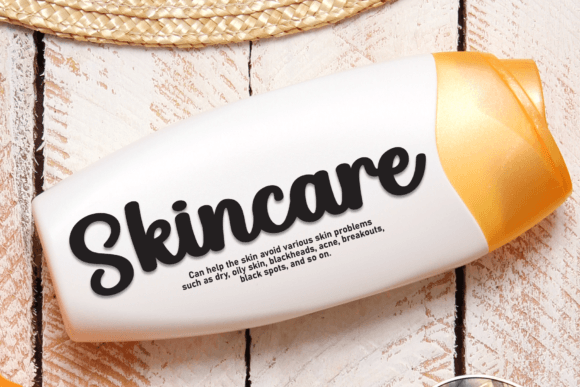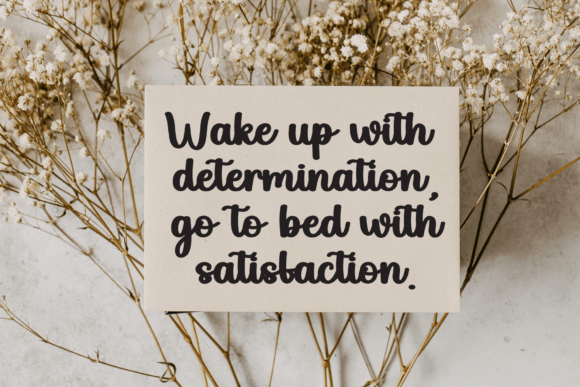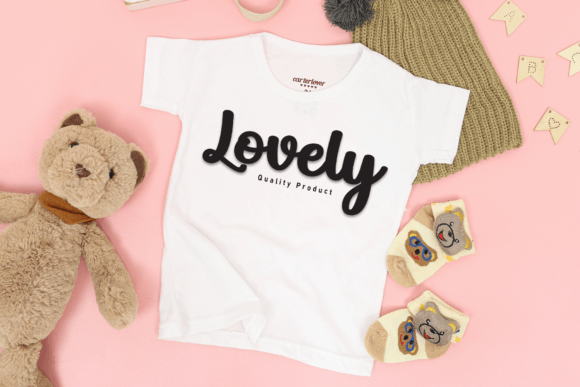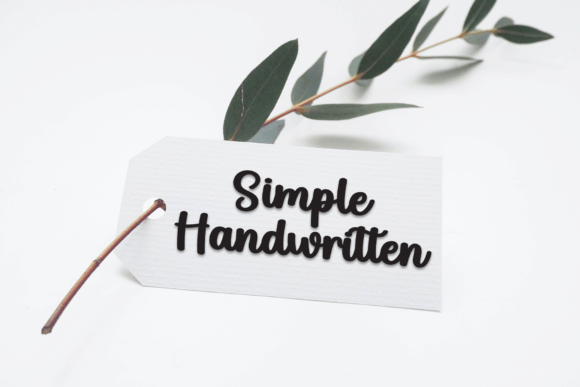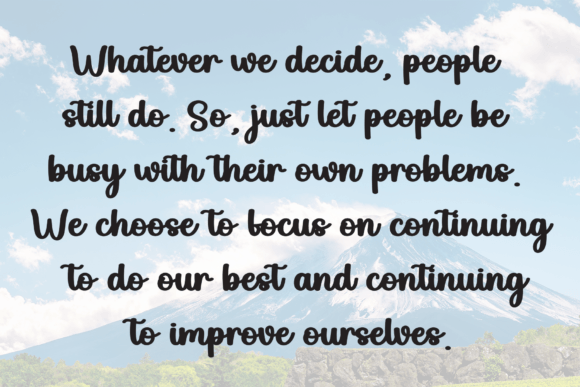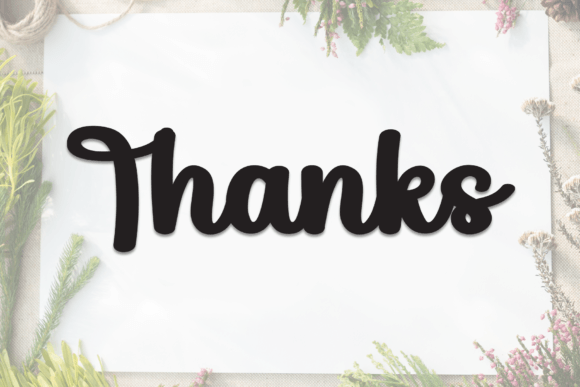
Introduction to Dream Wishes Font
Dream Wishes is a sweet and friendly handwritten font.
Key Features of Dream Wishes Font
Why Choose Dream Wishes Font?